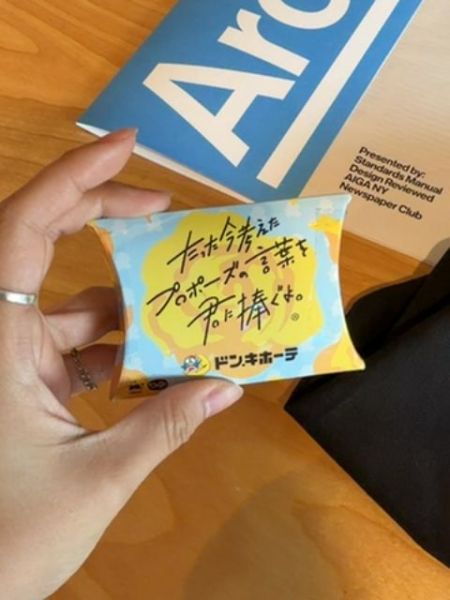
ドンキホーテ
A Japanese retail brand known for its variety of products ranging from groceries to electronics.
Typography
The typography on the packaging uses a whimsical, handwritten style that conveys a playful and approachable brand personality. The bold, dark ink contrasts sharply with the bright background, enhancing readability while adding a personal, inviting touch to the packaging.
Packaging
The packaging is compact and features a cloud-like design with bright yellow and blue colors, making it visually appealing. Its small, rounded shape fits comfortably in the hand, emphasizing convenience and portability.